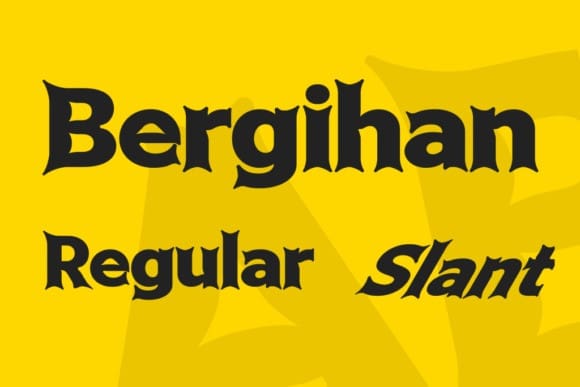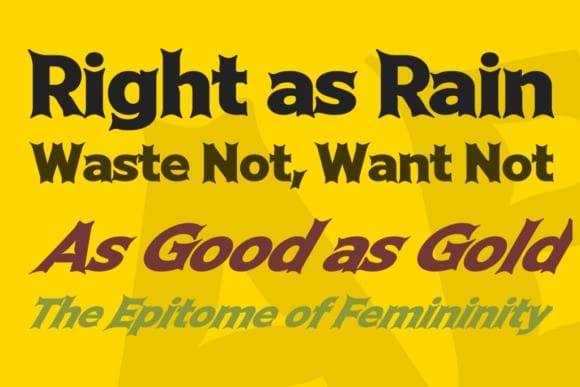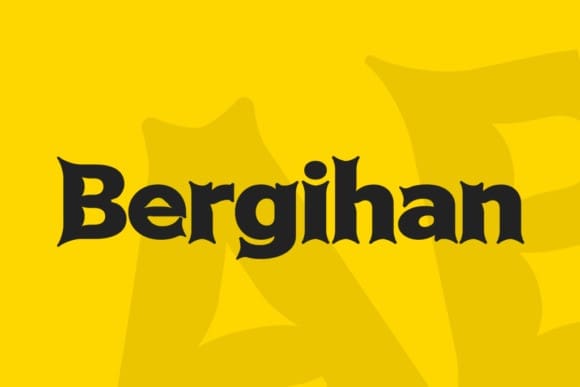
Bergihan Font
Bergihan Font, a powerful and striking display font designed with razor-sharp edges. Bergihan is tailor-made for commanding attention, the needle between elegance and audacity. Breathe life into your designs with the irrepressible charm of Bergihan.